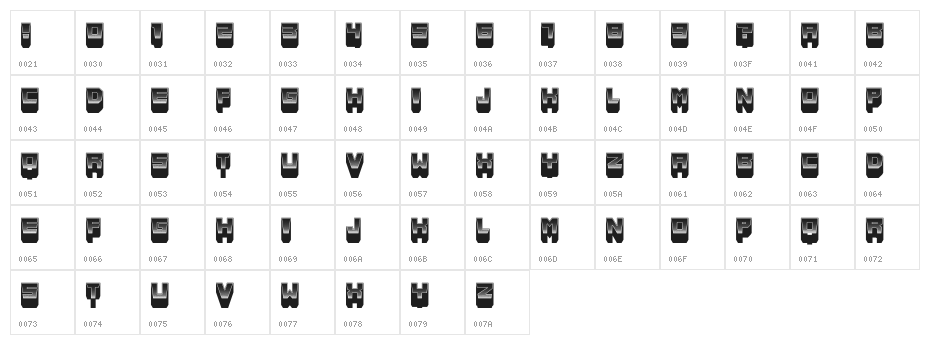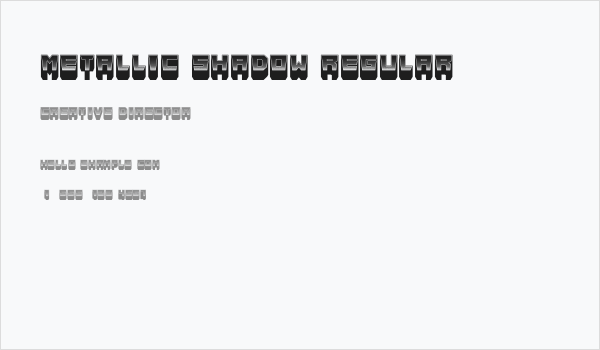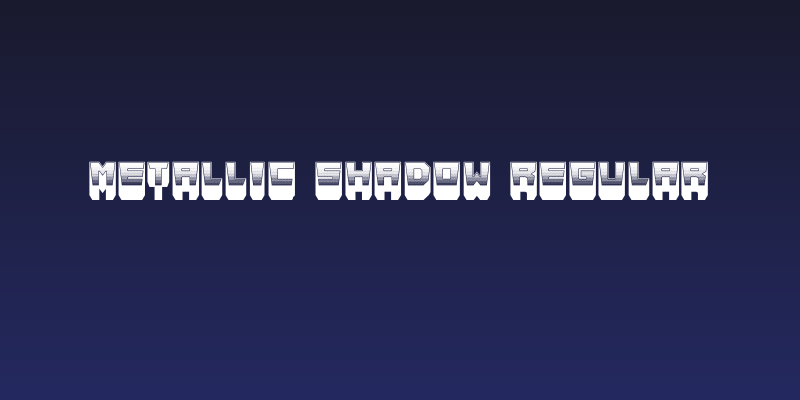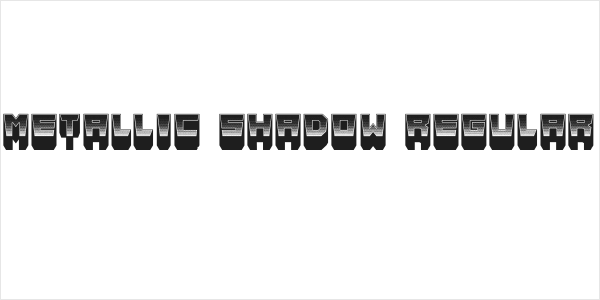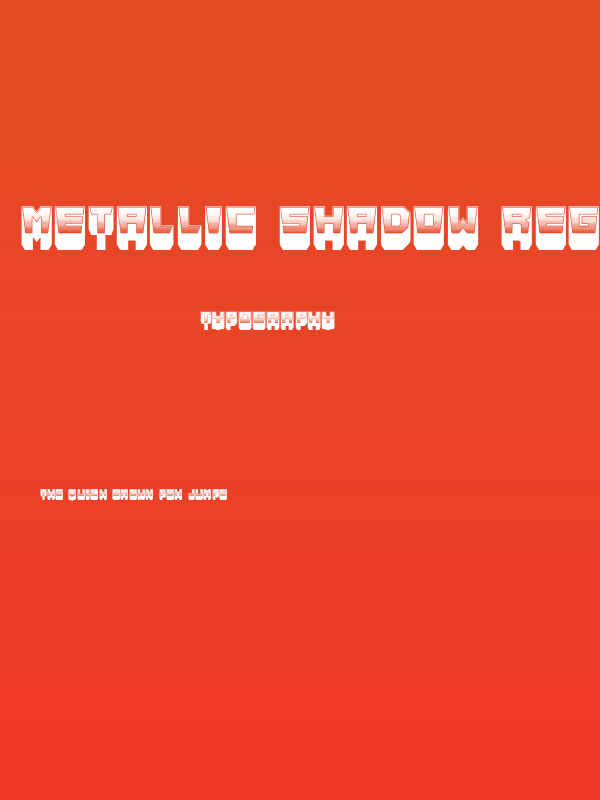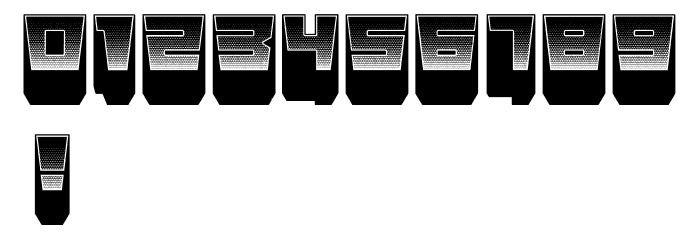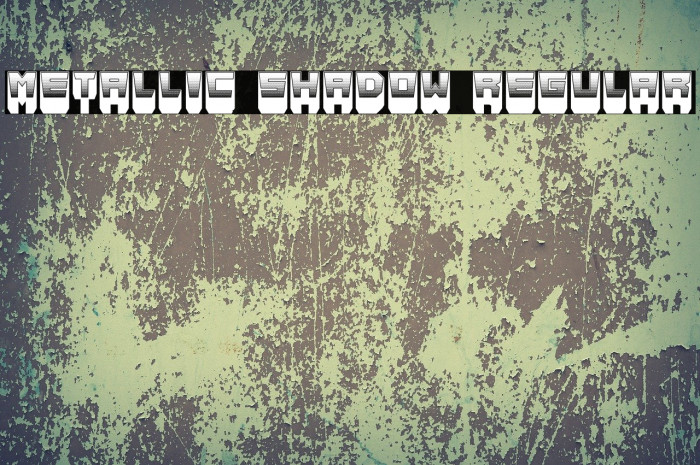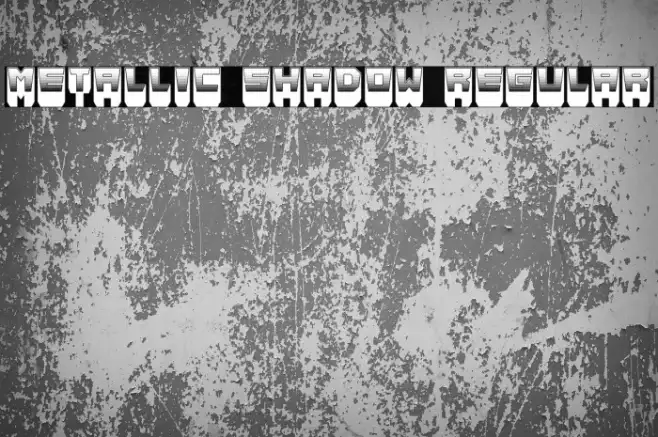
Metallic Shadow Regular Font
Metallic Shadow Regular Description
This font features a bold and striking 3D design with a metallic appearance, characterized by a shadow effect that gives depth and dimension to each character. The uppercase letters are robust and geometric, with a consistent width and a slightly condensed form. The font's texture includes a gradient that enhances its metallic look, making it stand out with a futuristic and industrial feel. The numbers and special characters maintain the same style, ensuring uniformity across all glyphs. This font is ideal for projects that require a strong visual impact and a modern aesthetic.
| Proposed Projects | Ideal for video game titles, movie posters, tech branding, and futuristic-themed designs. |